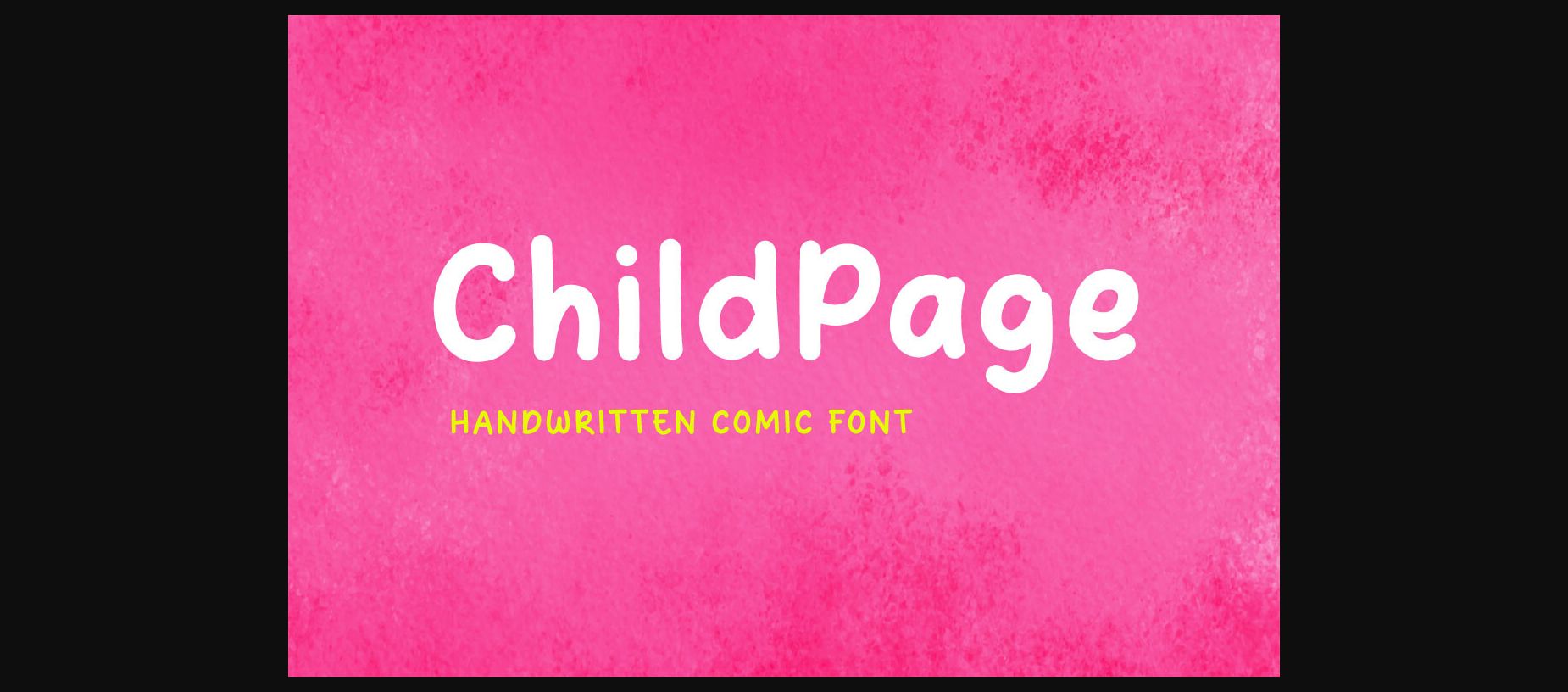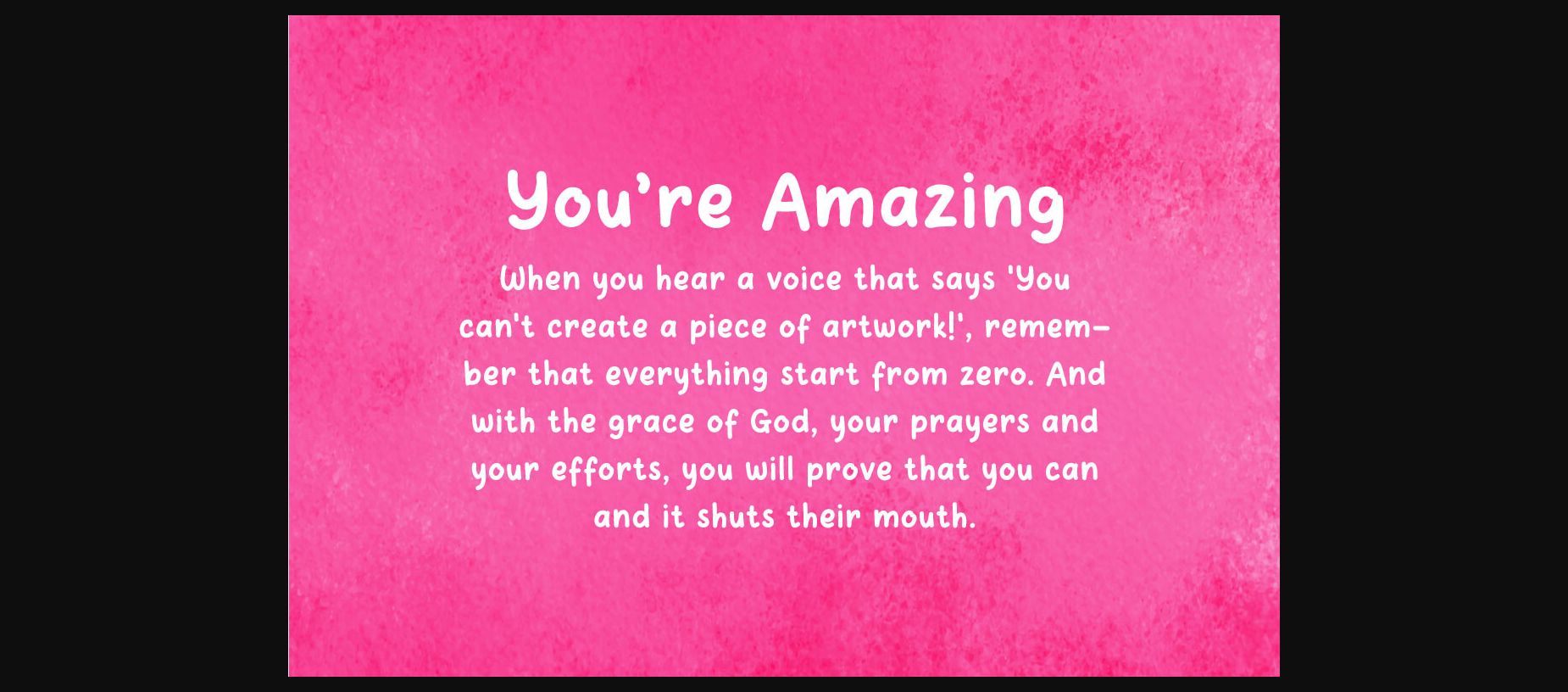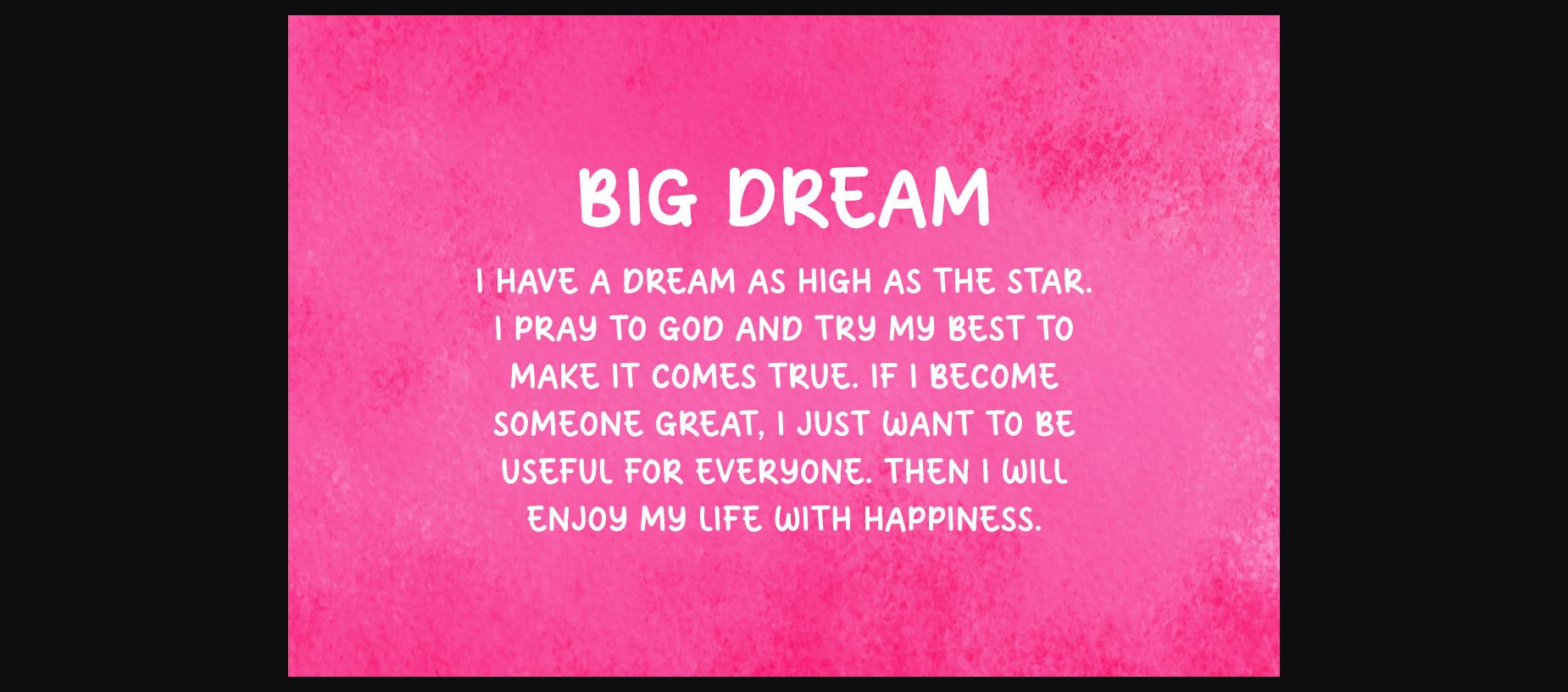
About Childpage Font
**ChildPage** is a minimalist handwritten comic font.
ChildPage can be used in any work such as comic books, posters, school, flyers, book titles, advertisements, social media content, logos, and many more.